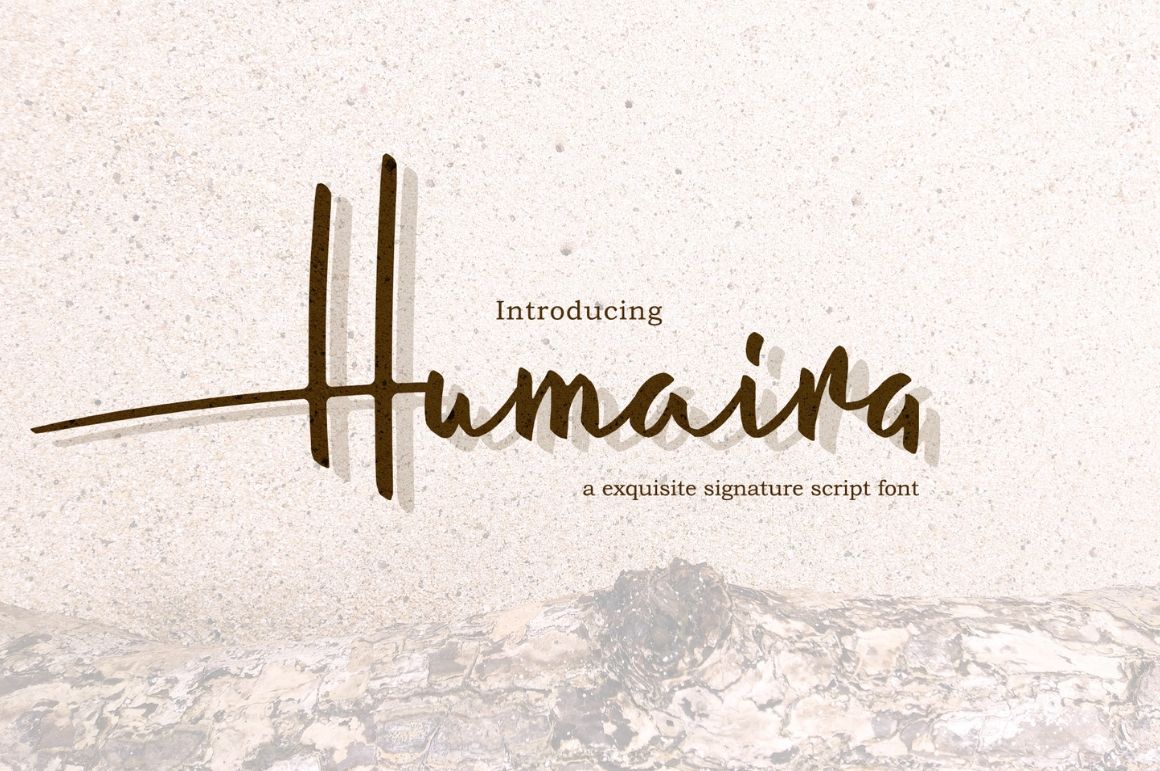
Free Humaira Font
Humaira free commercial font is a script font that gives a feel of manually written text. This smooth and elegant font script is perfect for signature logo, photography, packaging products, branding, print design, invitation, watermarks, magazines, even posts on social media, etc.
Hey, get a little excited with this unique and stunning signature script font available for free now. Use this exquisite font for your logos, graphics, and even understated signatures. This exciting font style will make your text look more appealing and eye-catching. This is a signature font style that is designed to provide a sensation of style in your text.
- Signature logos
- Photography
- Packaging products
- Branding
- Print designs
- Watermarks
- Magazines
- Social media posts